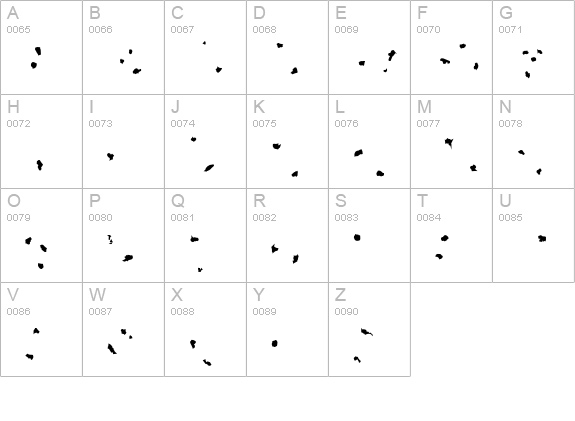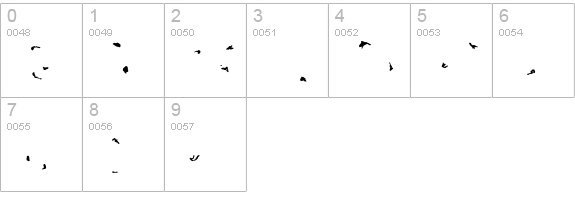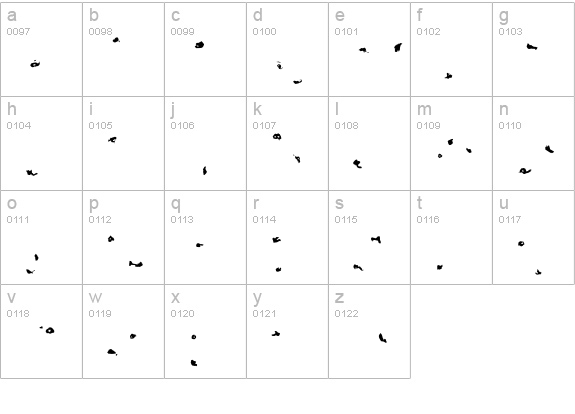
TOXIN-SPOTS Font Details
Introducing TOXIN-SPOTS, a captivating and innovative font that is bound to leave a lasting impression on any design project. This unique typeface combines edgy and organic elements, creating a visually striking aesthetic that is sure to stand out from the crowd. TOXIN-SPOTS is meticulously crafted with intricate details that resemble the texture of toxic spots, adding a touch of mystery and intrigue to your designs. Each letter is carefully designed with a balance of sharp edges and fluid curves, creating a harmonious blend of chaos and sophistication. This font is not only visually appealing but also highly versatile, making it suitable for a wide range of design projects. Whether you're working on a poster, branding, packaging, or web design, TOXIN-SPOTS will effortlessly elevate your creations to new heights. The best part? TOXIN-SPOTS is available for free download exclusively at FontsMarket.com. We believe that great design should be accessible to all, and that's why we're thrilled to offer this stunning font at no cost. Simply head over to FontsMarket.com and start incorporating TOXIN-SPOTS into your designs today. With TOXIN-SPOTS, you have the power to make a bold statement and captivate your audience with its unique and captivating appeal. Download this extraordinary font now and let your creativity run wild. Embrace the free-spirited and avant-garde style of TOXIN-SPOTS, and watch as your designs come to life with an irresistible allure.